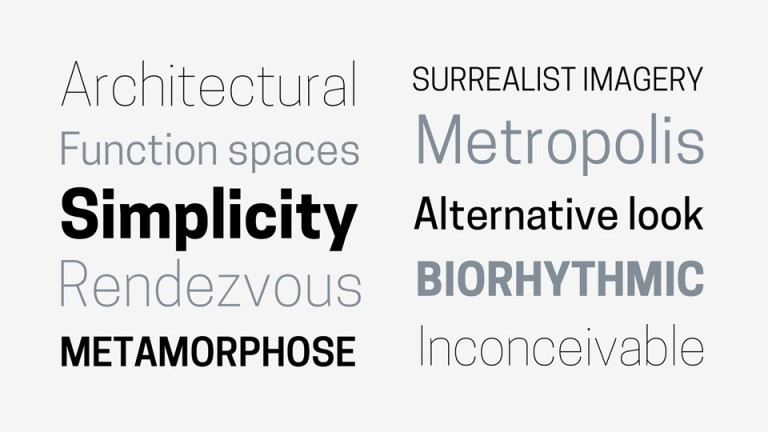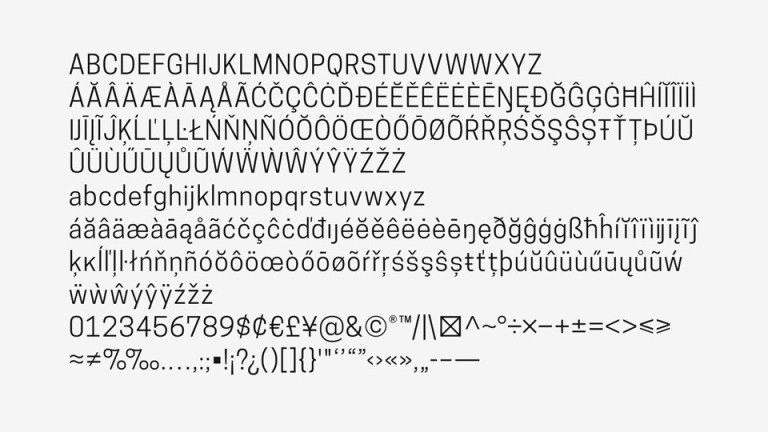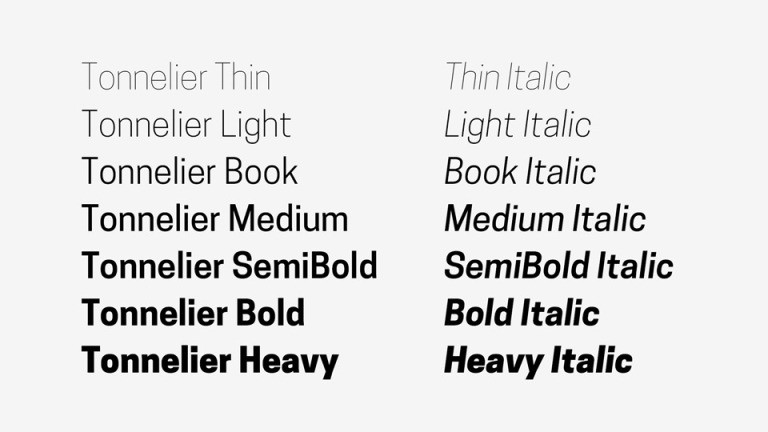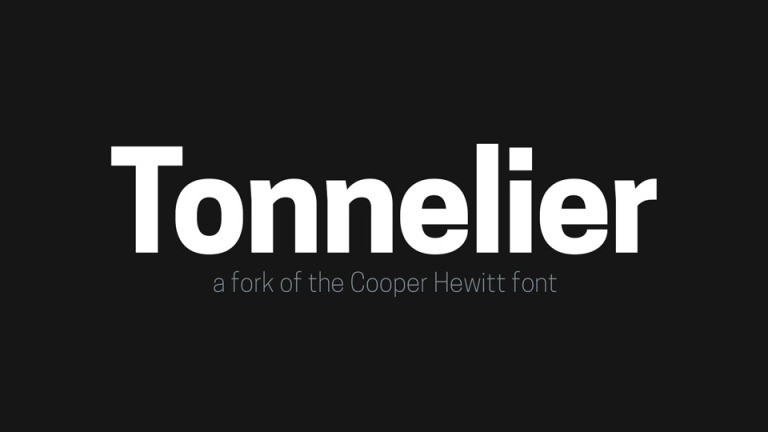
Tonnelier Sans Serif Font is a family of multi-purpose typefaces designed in a geometric style. It’s a fork of the Cooper Hewitt font, designed by Chester Jenkins for the Cooper Hewitt Smithsonian Design Museum. Tonnelier is French for Cooper. Tonnelier is created with all the tasks of a corporate font and also for the usage in a variety of projects, including branding, logos, titles, headlines, servers, posters, screens, display, digital ads, and everything else.